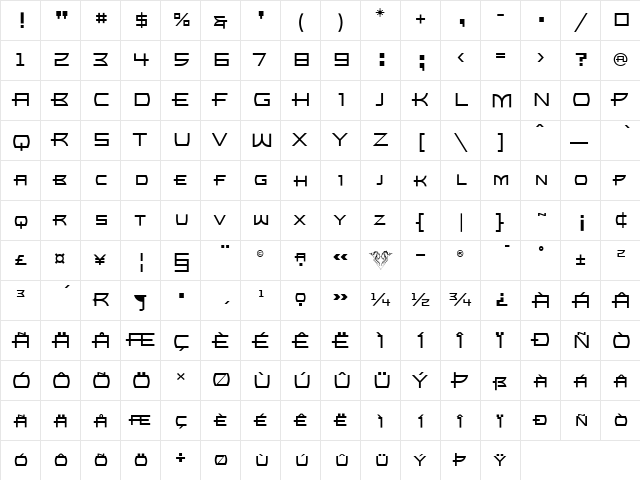
UltraBronzo Regular
Design Context for UltraBronzo Typeface
UltraBronzo is a composed and adaptable typeface that performs quietly and consistently across a wide range of design contexts.
Pro Tip: Pair UltraBronzo with a font of contrasting weight or personality to build a more expressive typographic hierarchy.